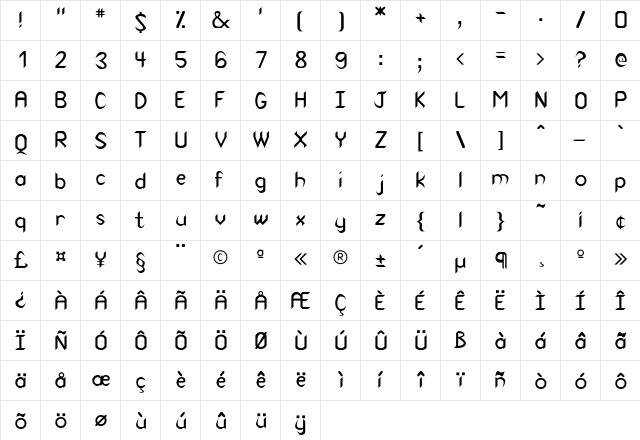
RSCanaith Regular
Design Context for RSCanaith Typeface
RSCanaith offers clean, dependable letterforms without strong stylistic allegiance, making it a practical choice for designers who need flexibility.